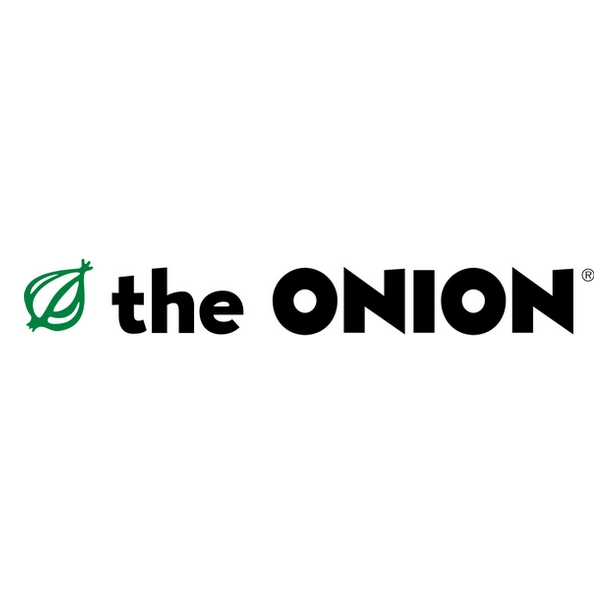
The Onion Font
Fonts in UseThe Onion is a satirical news website that publishes articles and videos mocking current events and news media. It was founded in 1988 and has since become well-known for its humorous take on the news.
The Onion logo uses the Eagle typeface, inspired by the lettering of the Blue Eagle poster in 1933. It was designed by Lucian Bernhard, David Berlow, and Jonathan Corum, with four available weights. More details can be found here.